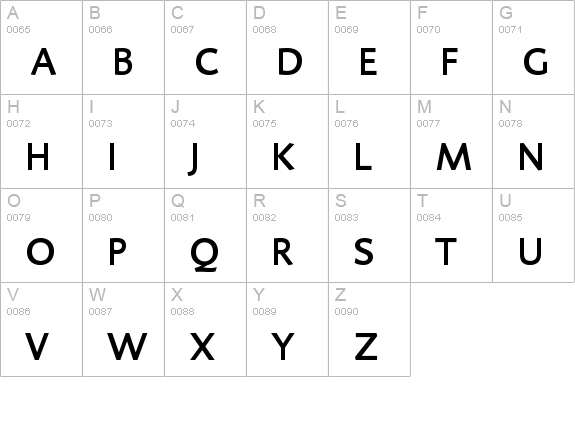
DTLCaspariT-Medium is a balanced, medium-weight variant in the DTLCaspariT typeface family \xE2\x80\x94 well suited to sub-headlines, navigation, and balanced editorial work.
DTLCaspariT-Medium is a versatile and elegant font that exudes a sense of sophistication and modernity. With its clean lines and balanced proportions, this font is perfect for a wide range of design projects, from branding to editorial design. The medium weight of DTLCaspariT-Medium strikes the perfect balance between boldness and readability, making it ideal for both headlines and body text. What makes DTLCaspariT-Medium even more appealing is that it is available for free download at FontsMarket.com. This means that you can easily incorporate this stylish font into your projects without any additional cost. Whether you are designing a website, creating a brochure, or working on a logo, DTLCaspariT-Medium is sure to elevate your design with its timeless appeal. Download it now and add a touch of sophistication to your next project.